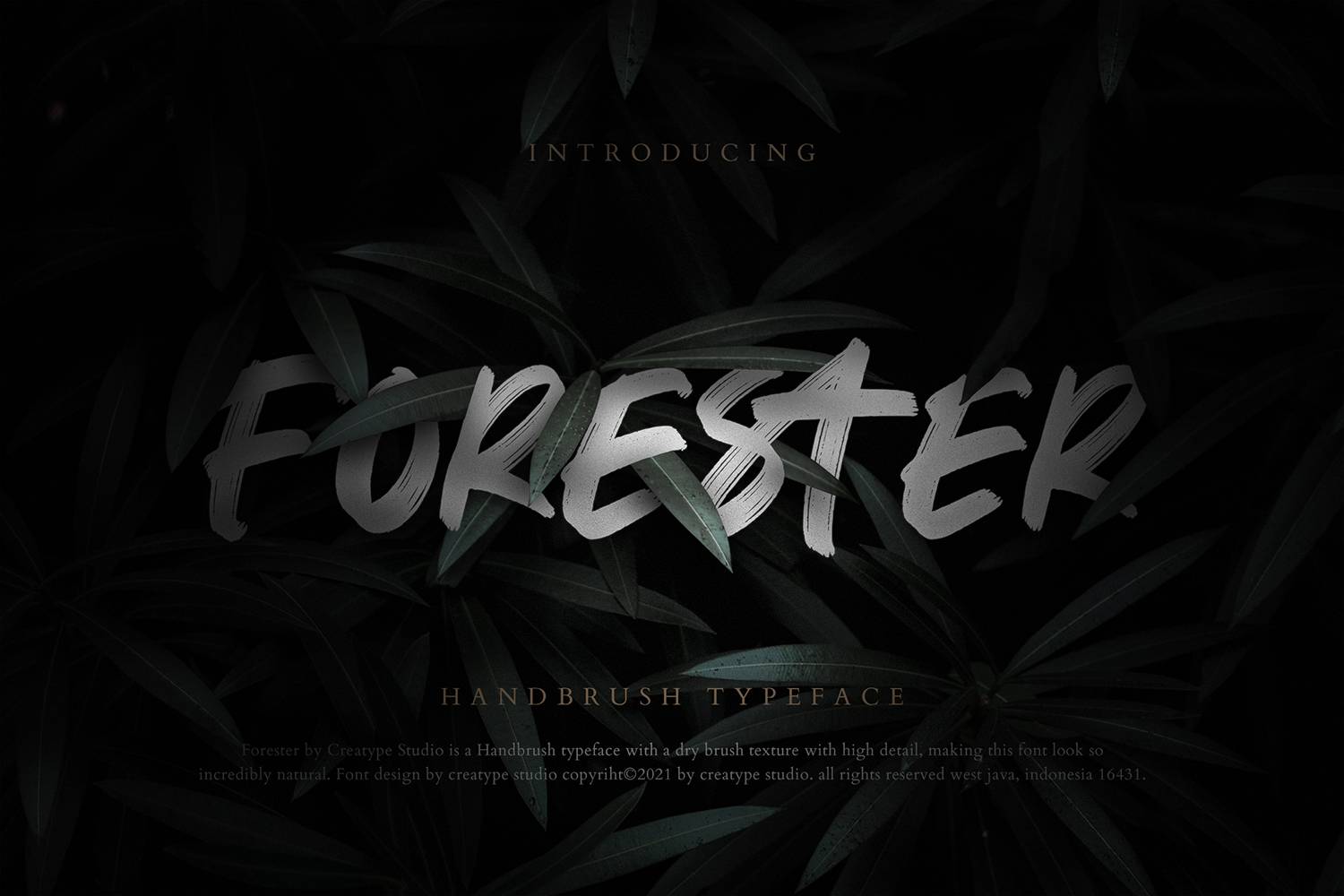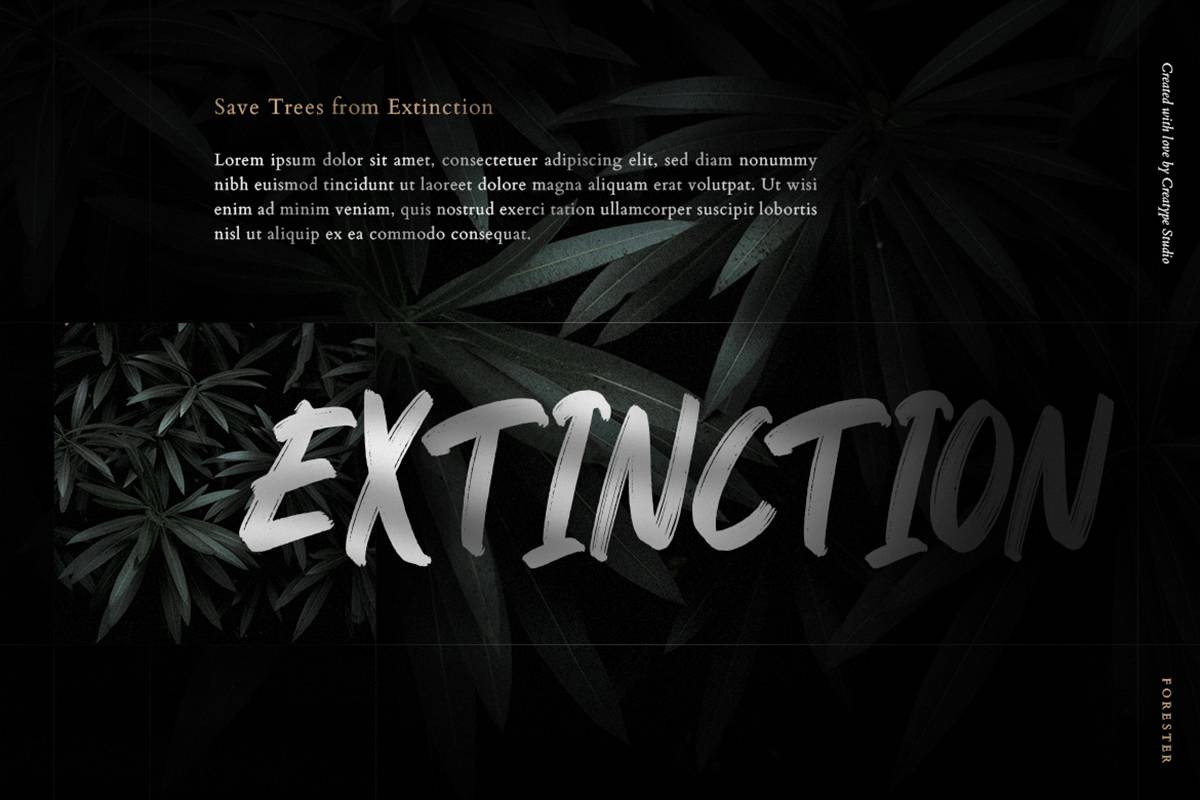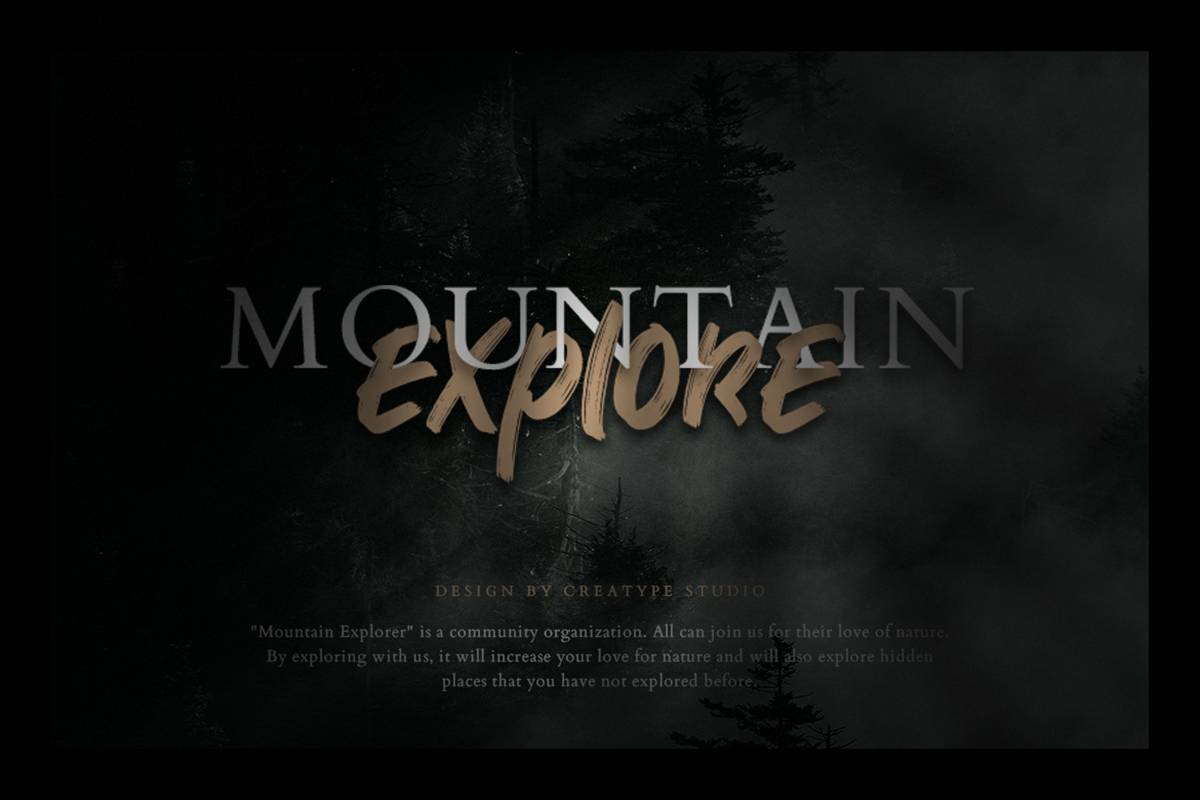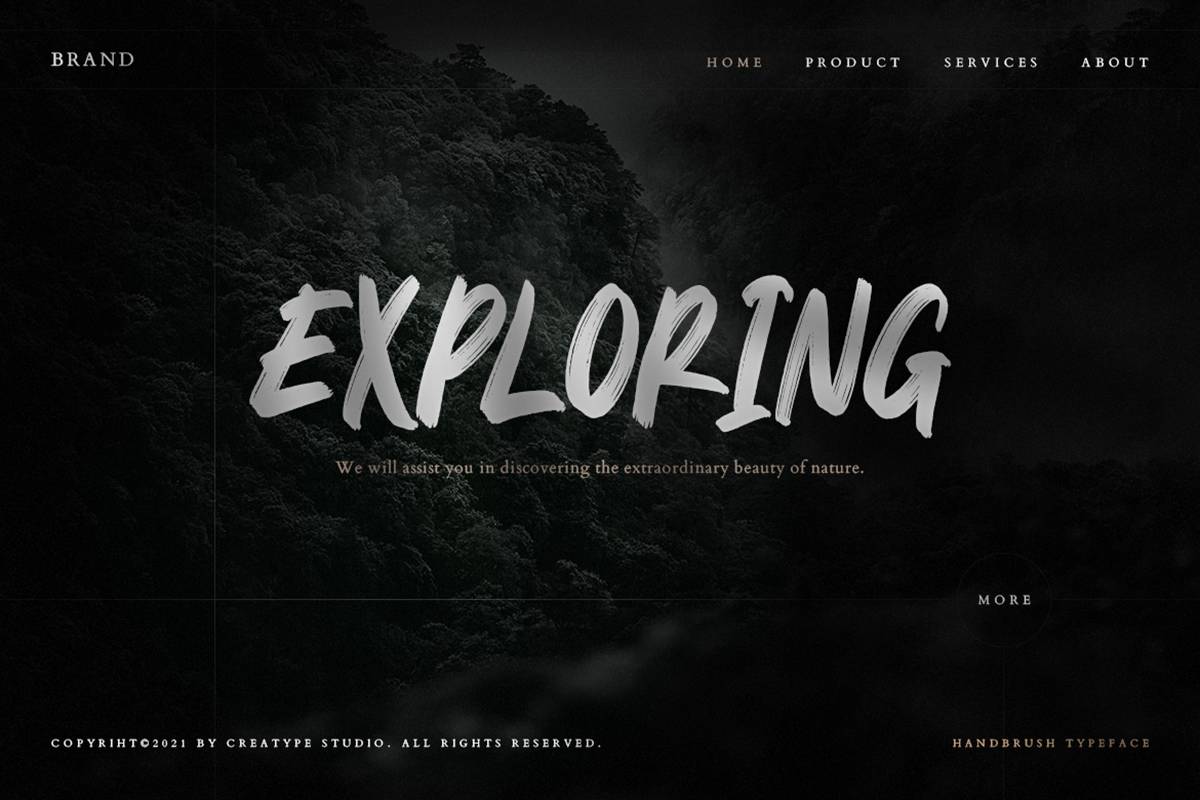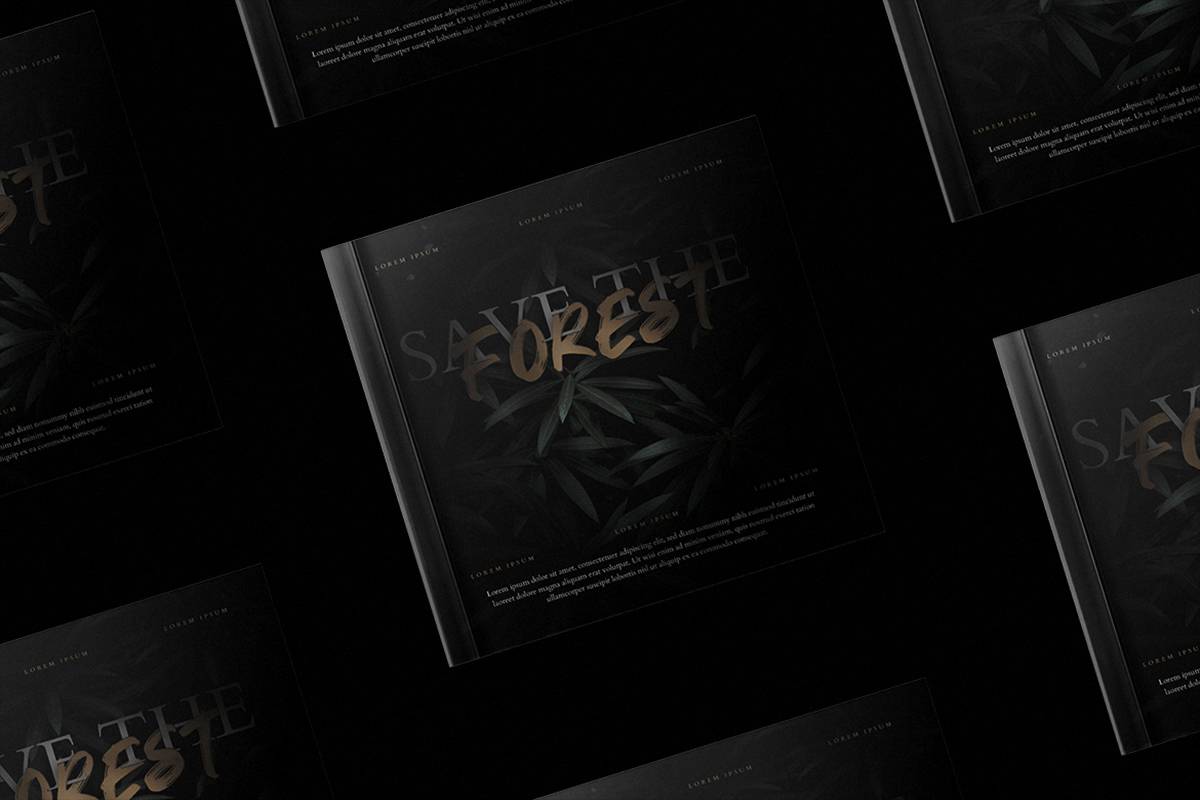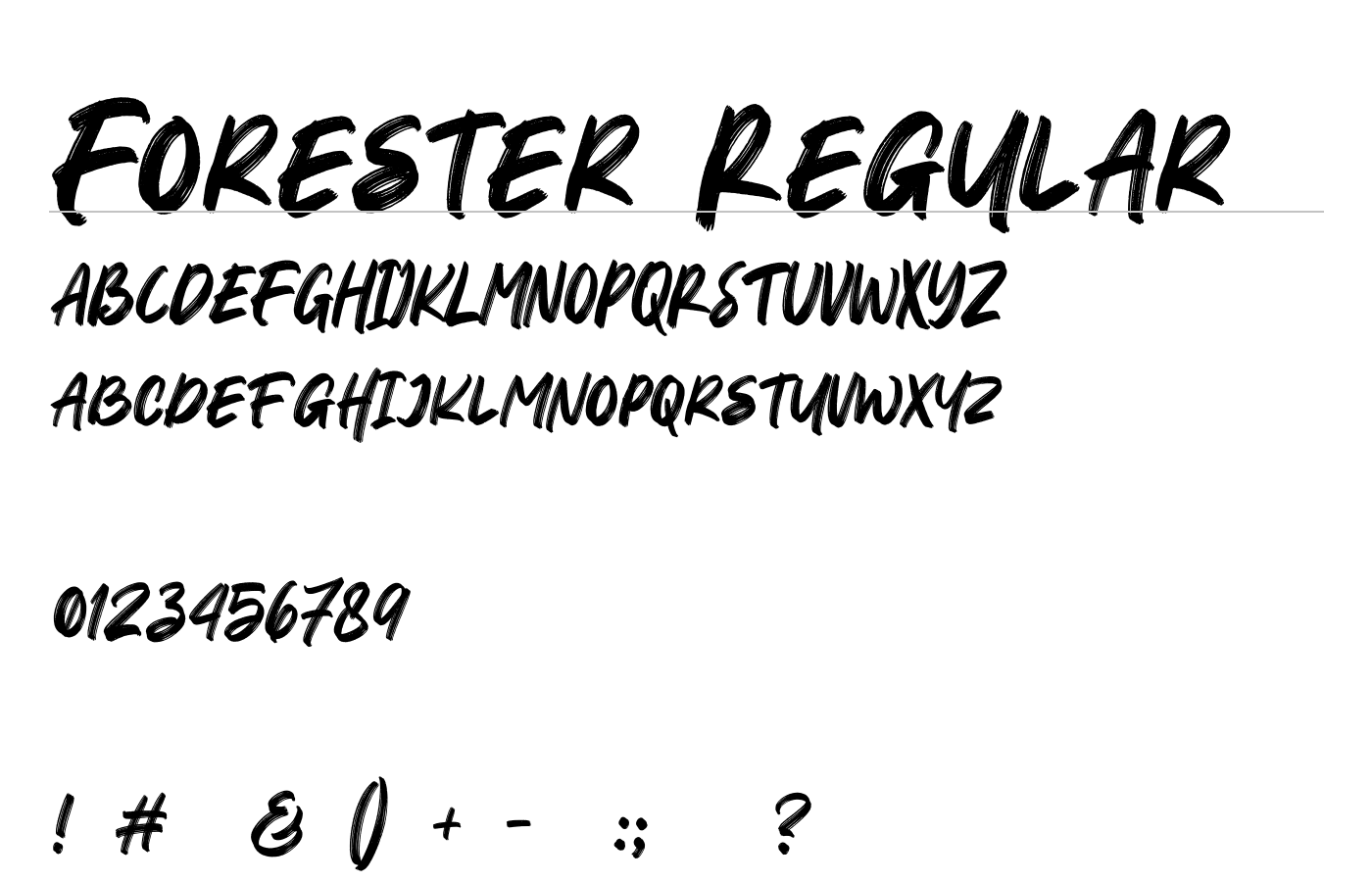
Forester is a bold, brush script font that combines a casual, hand-painted feel with energetic strokes and slightly rough edges. Its dynamic, all-caps letterforms and lively texture make it perfect for adding a creative, spirited touch to branding, posters, or headlines where a sense of personality and movement is desired. This font works well for designs aiming to express authenticity, playfulness, and a handcrafted vibe.
Forester Font
About Forester Font
| Font family | Forester Font |
| Release date | 2021-06-25 |